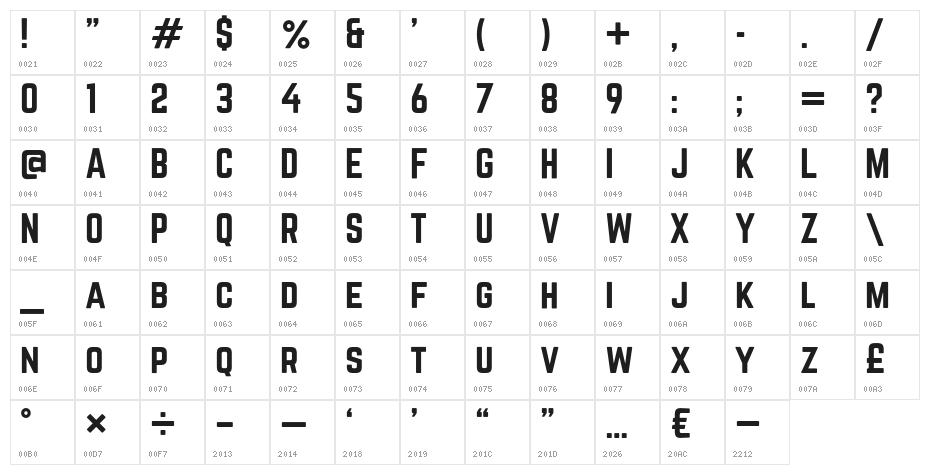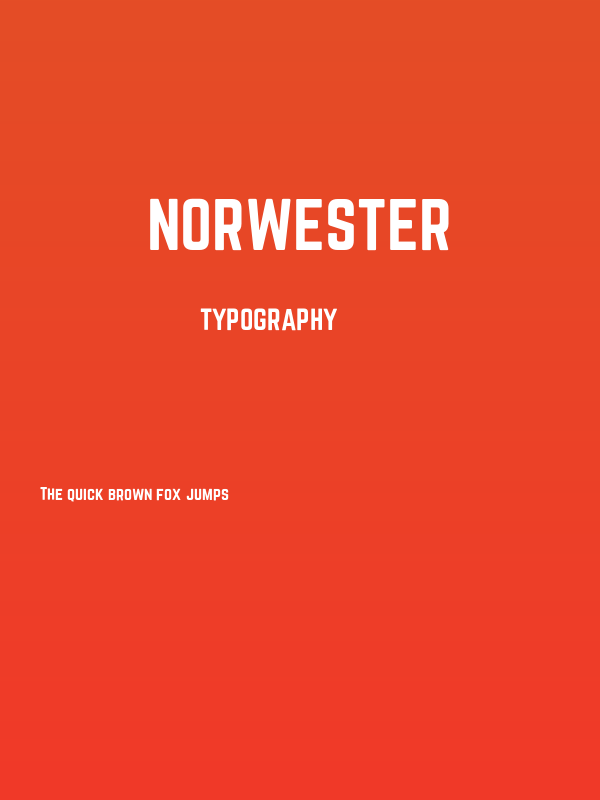
Norwester Font
Norwester Description
This font features a bold, geometric sans-serif style with strong, clean lines and a modern aesthetic. Its uppercase letters are uniform in height, creating a cohesive and structured appearance. The characters are slightly condensed, giving a compact look that is both impactful and legible. The numerals are designed to match the boldness of the letters, ensuring consistency across all text. Special characters are included, maintaining the same bold and modern design. This font is versatile, suitable for a variety of design projects that require a contemporary and assertive typeface.
| Proposed Projects | Ideal for branding, headlines, posters, and digital media where a strong, modern presence is desired. |